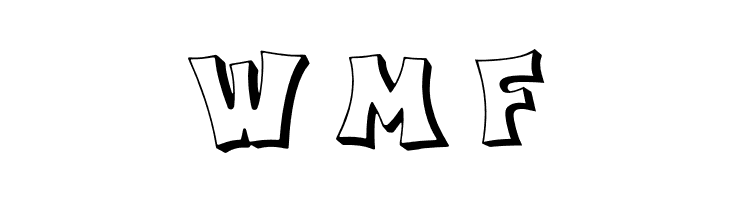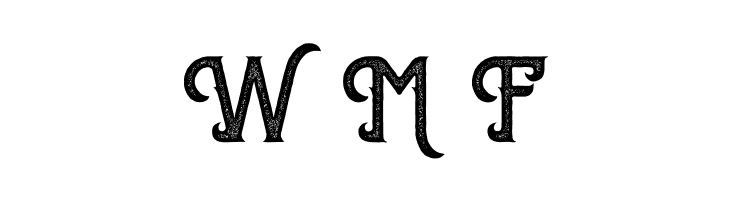
A modern, minimalist font with thin, geometric lines and balanced spacing.
A bold, decorative font with intricate floral patterns for a luxurious look.
A bold, geometric font with high contrast and a condensed style.
A bold, dynamic font with playful, irregular forms and high contrast.
A bold, decorative font with vintage flair and intricate detailing.
A bold, dotted font with a punk-inspired, playful style.
A playful, decorative font with Easter-themed illustrations and text.
A whimsical and fluid script font with a hand-drawn appearance.
A bold, decorative serif font with intricate details and a vintage flair.
A whimsical and playful font with decorative curves and swirls.
A stylish font featuring characters embedded in high-heeled shoe silhouettes.
A playful and artistic font made from lip print designs, perfect for creative projects.
A decorative font with apparel and accessory icons.
A distressed, chaotic font with jagged edges and irregular strokes.
A tall, narrow font with high contrast and elegant, modern styling.
A textured, distressed font with a rugged, leather-like appearance.
An elegant, high-contrast, light italic font with extended width and classic serifs.
A whimsical, handwritten font with curly and looping strokes.
A playful, rounded font with smooth curves and a friendly appearance.
A highly condensed, thin, and modern font with a sleek and elegant appearance.
Elegant, extra condensed serif font with high contrast and italic style.
A playful, hand-drawn font with bold outlines and a whimsical style.
A bold, playful comic book style font with thick outlines and dynamic curves.
An ultra-thin, elegant font with elongated characters and a modern aesthetic.
A sleek, ultra-thin font with elongated, modern letterforms.
A light, narrow, and italic font with high contrast and elegant style.
A bold, left-italic, futuristic font with a dynamic, fast-paced look.
A sleek, extra-light italic font with a modern and elegant style.
A sophisticated, high-contrast serif font with tall, narrow letterforms.
A bold, decorative font with vintage, textured details.
A sleek, narrow, and italicized font with a modern and elegant style.
A modern, high-contrast font with elegant, geometric forms.
A sleek, modern, light italic font with high contrast and elegant style.
A sleek, modern font with elongated, thin strokes and a minimalist aesthetic.